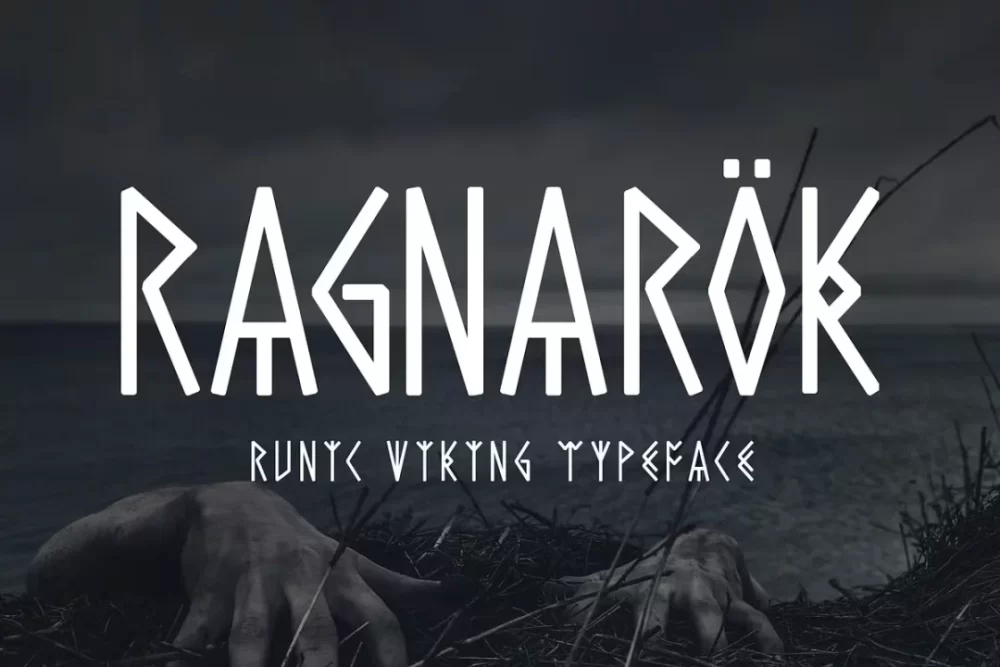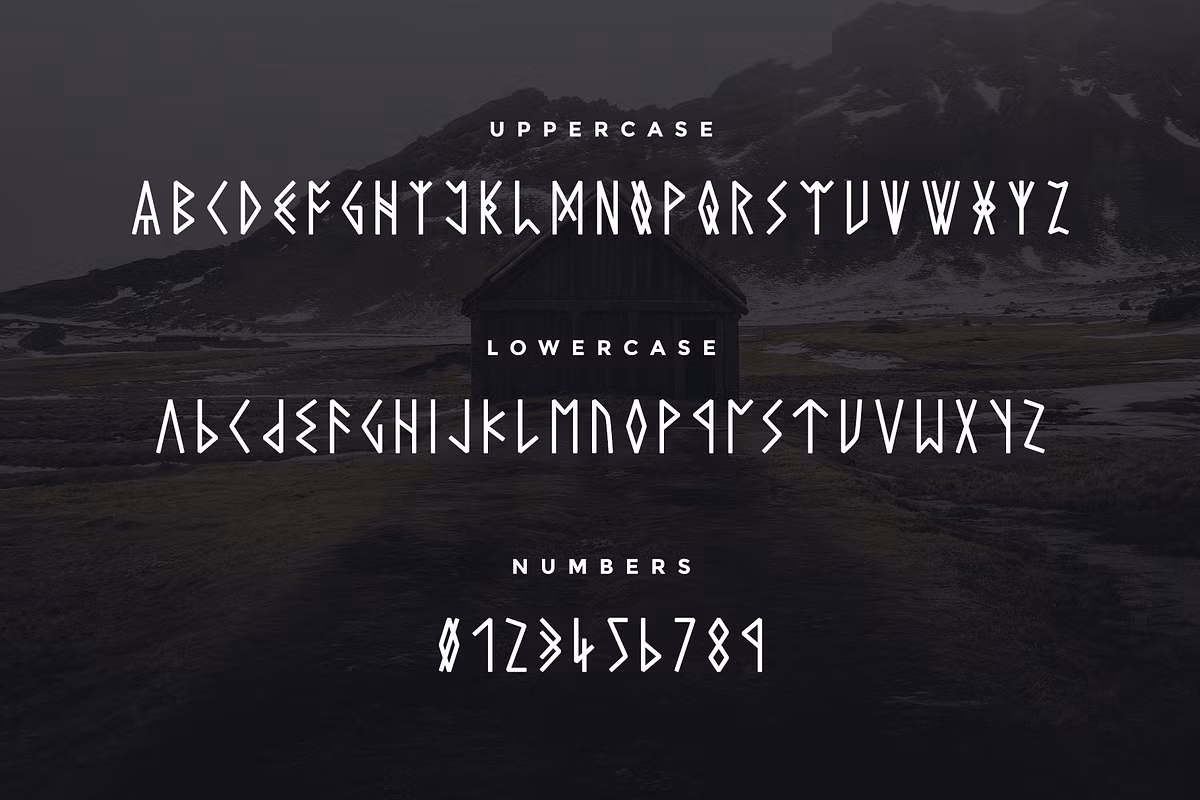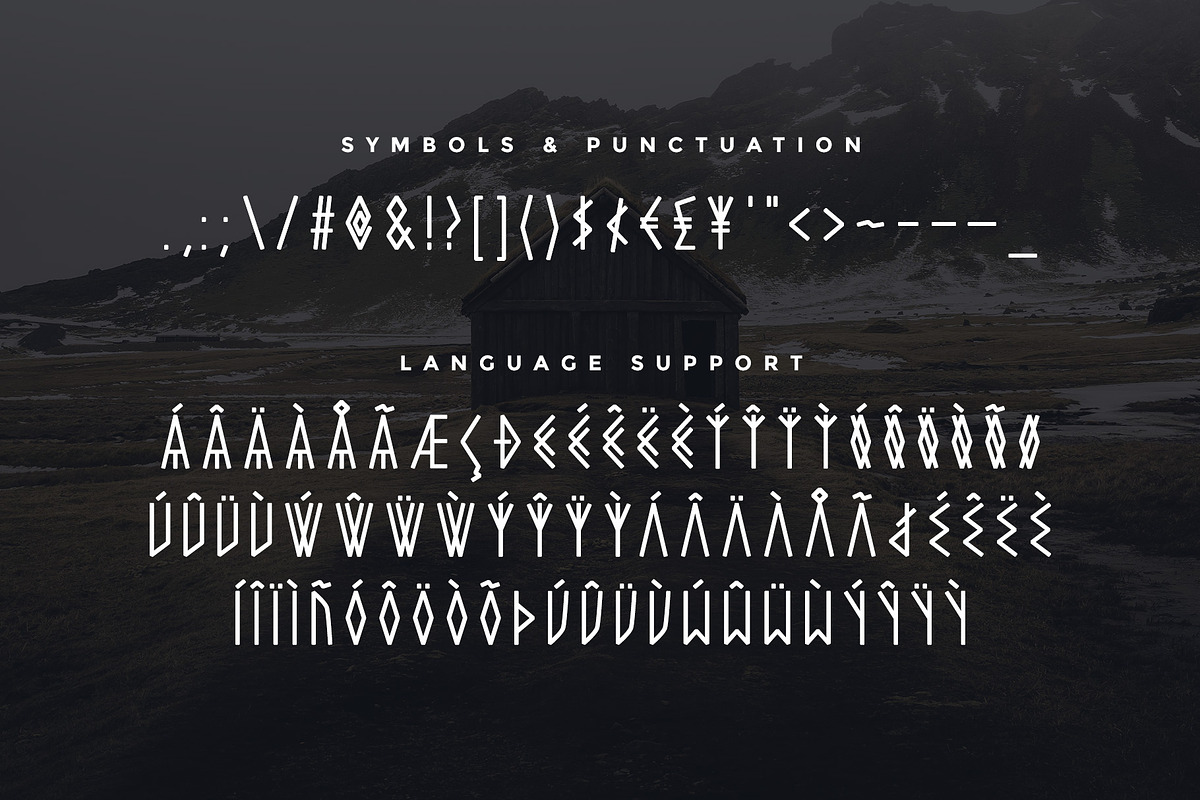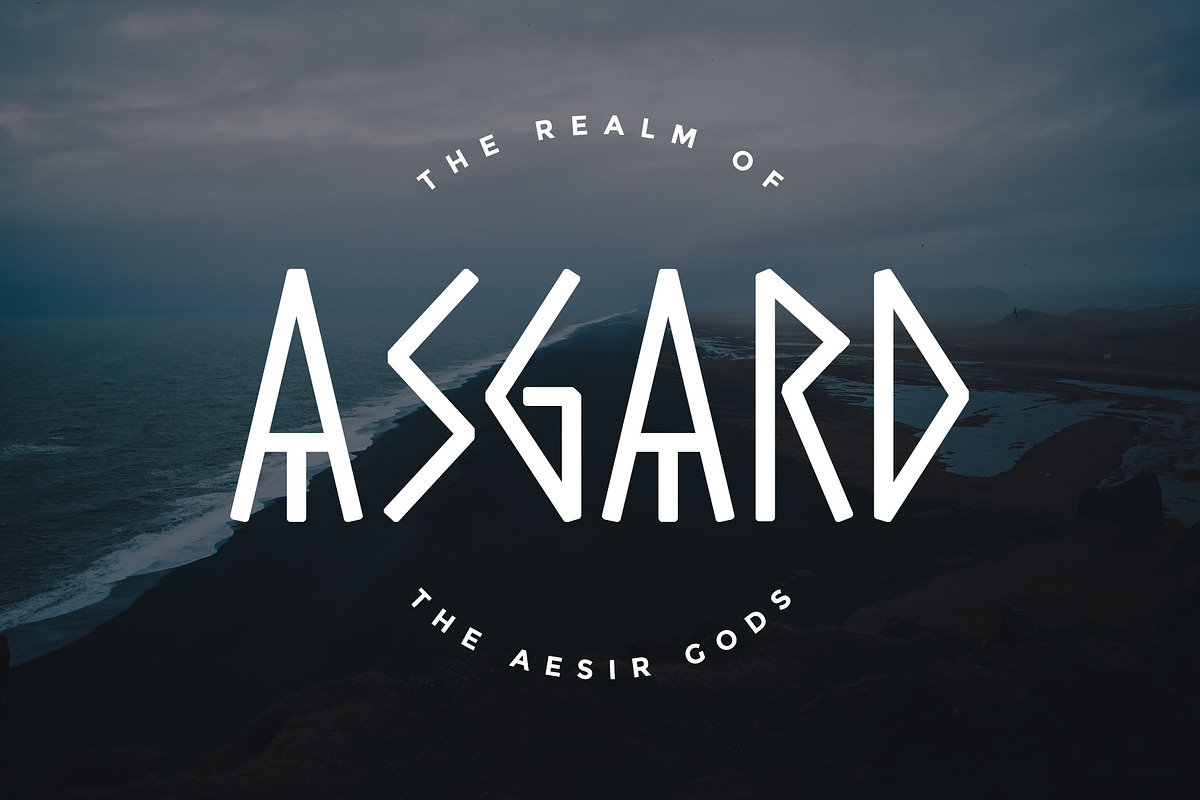
Ragnarok is a typeface inspired by ancient nordic runes, it combines traditional latin letters and numbers with viking spirit. Ragnarok is perfect for display purposes, in particular headlines and it should go without saying that it is most suited for projects relating to vikings or norse mythology.
You can use this font just like any other typeface on your system, it has uppercase and lowercase variations of each letter, numbers 0-9, punctuation, most common symbols and even has support for Western European languages.